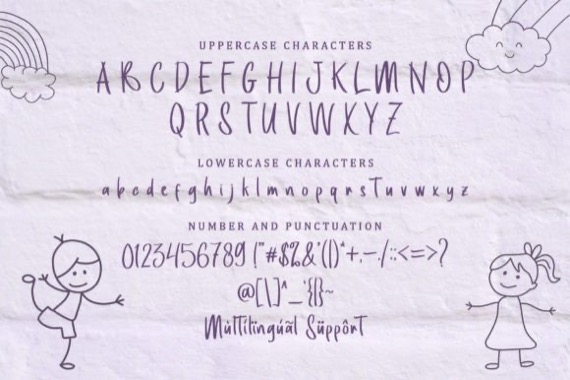
Proudly introducing a new modern script typeface from Sakha Design, Kids Line is a cute and friendly handwritten font. Whether you’re using it for crafts, digital design, presentations, or making greeting cards, this font has the potential to become your favorite go-to font, no matter the occasion!
Kids Line Handwritten Font